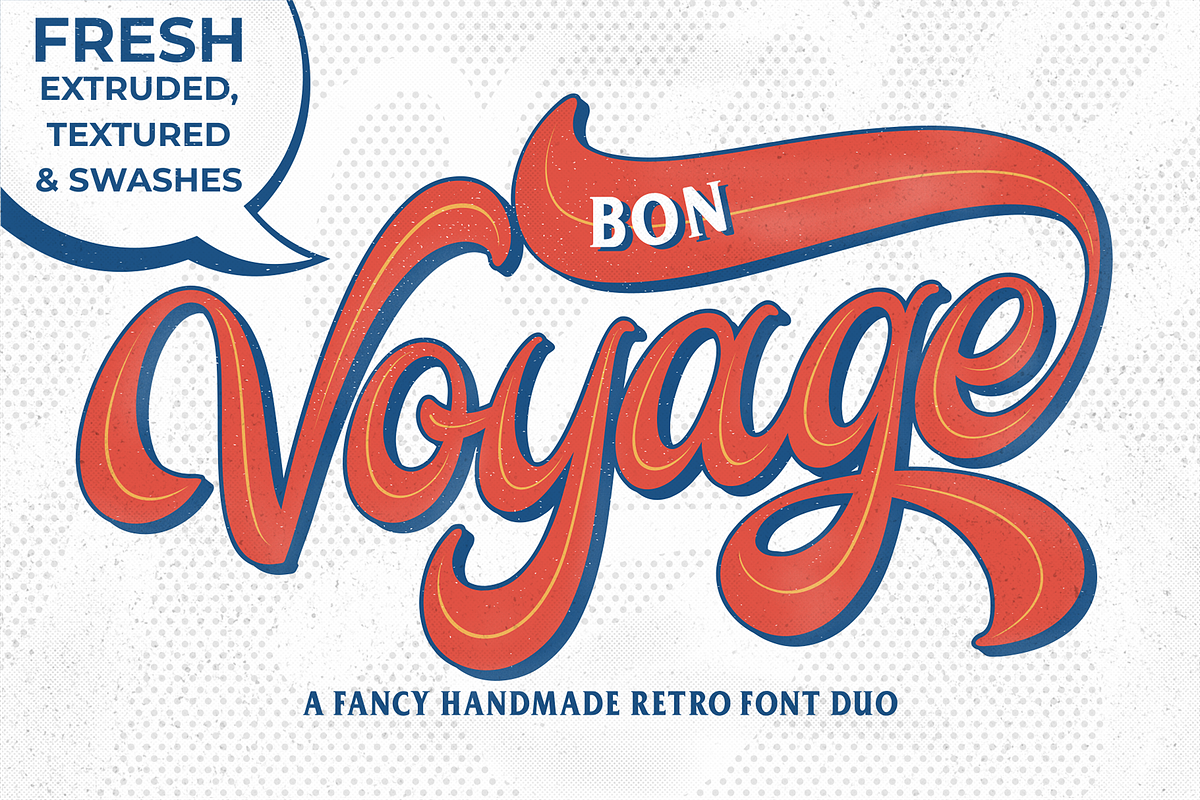
Retro Fonts - Bon Voyage! Free Download
Bon Voyage! Retro Font Free Download
Introducing Bon Voyage! Retro Font Free Download, a script typeface inspired by popular retro hand-lettering from the 1970s, enhanced with a touch of pop style for a unique and elegant appearance. This handmade font comprises several precision layers, totaling 526 glyphs, making it highly versatile and easy to use. Ideal for t-shirts, logos, printed quotes, badges, packaging, headlines, posters, cards, and invitations, Bon Voyage! Retro Font Free Download adds a nostalgic yet fresh feel to your designs. Download Bon Voyage! Retro Font Free Download to explore its features in personal projects. For commercial use, please ensure you purchase the appropriate license. Elevate your designs with the distinctive charm of Bon Voyage! Retro Font Free Download